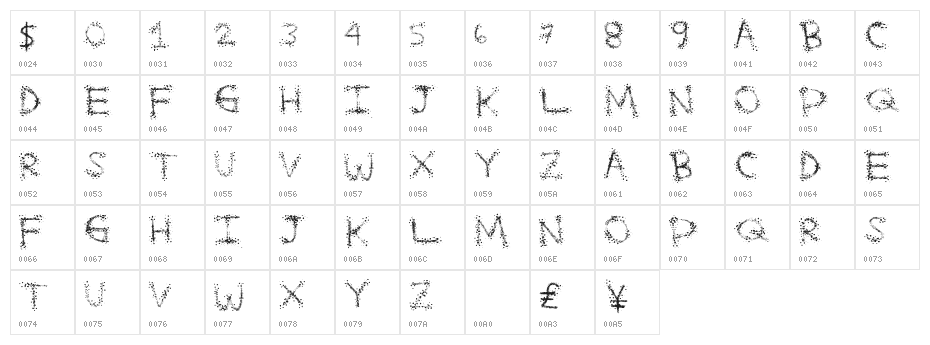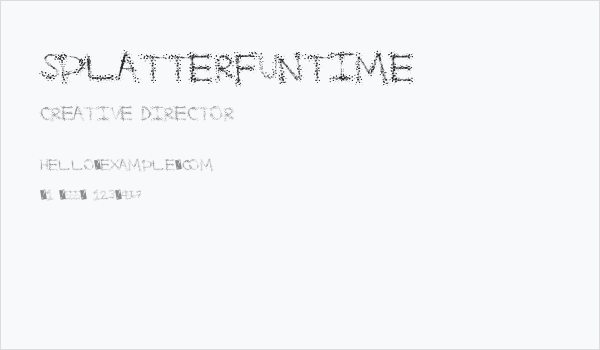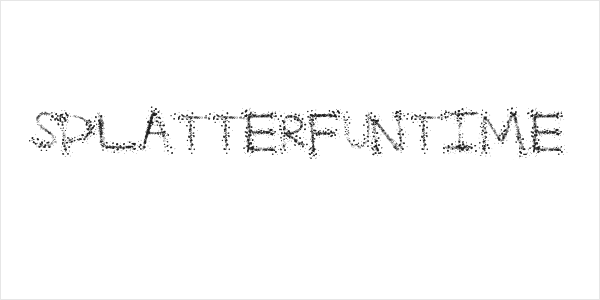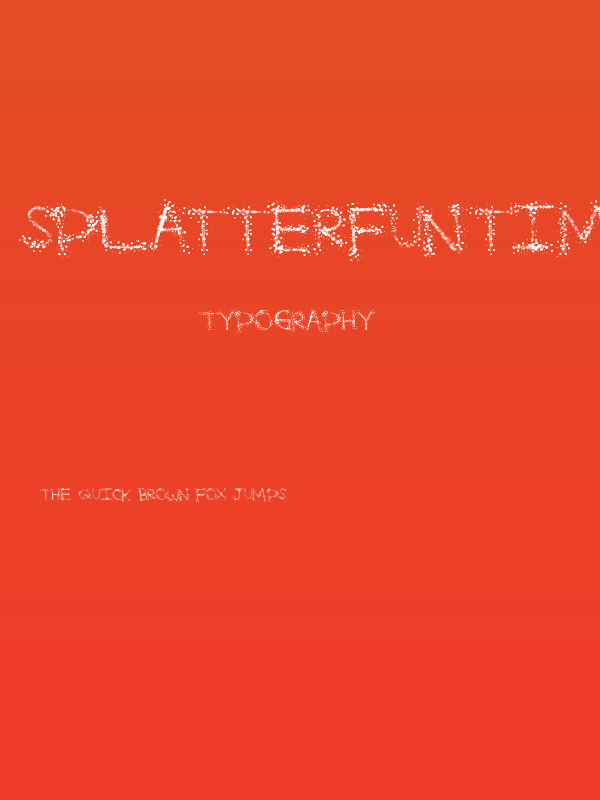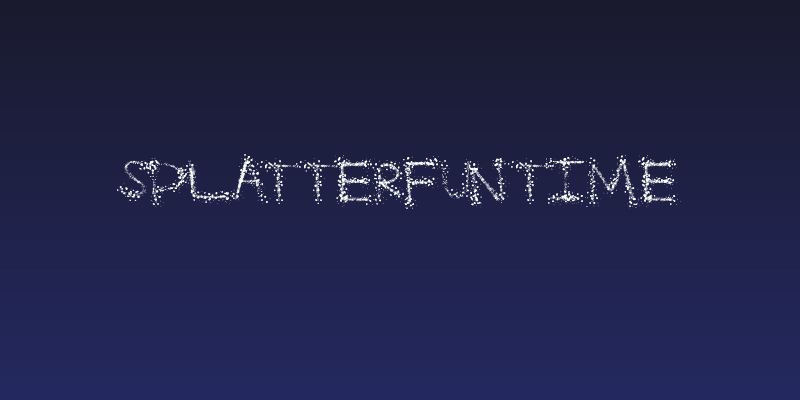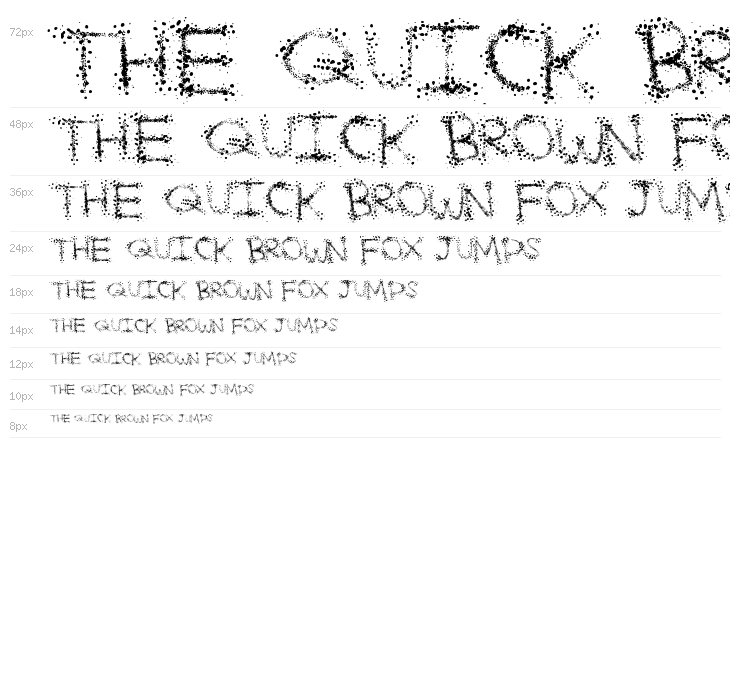
SplatterFuntime Font
SplatterFuntime Description
This font features a unique splatter effect that gives it a dynamic and energetic appearance. Each character appears as if it has been created by a series of ink splatters, creating a textured and irregular edge. The uppercase and lowercase letters maintain a consistent style, with the splatter effect providing a sense of movement and spontaneity. The numbers and special characters are equally expressive, making this font ideal for creative and unconventional projects. The overall look is playful and artistic, perfect for designs that require a bold and eye-catching typeface.
| Proposed Projects | Ideal for posters, album covers, graffiti art, and any project requiring a bold, artistic touch. |